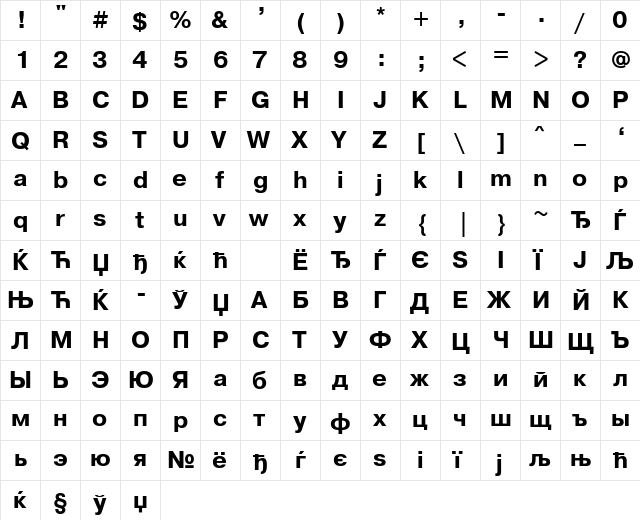
PragmaticaISOCTT Bold Font Preview
PragmaticaISOCTT Bold
Design Context for PragmaticaISOCTT Typeface
PragmaticaISOCTT is a composed and adaptable typeface that performs quietly and consistently across a wide range of design contexts. The heavy weight commands attention and anchors typographic hierarchies.